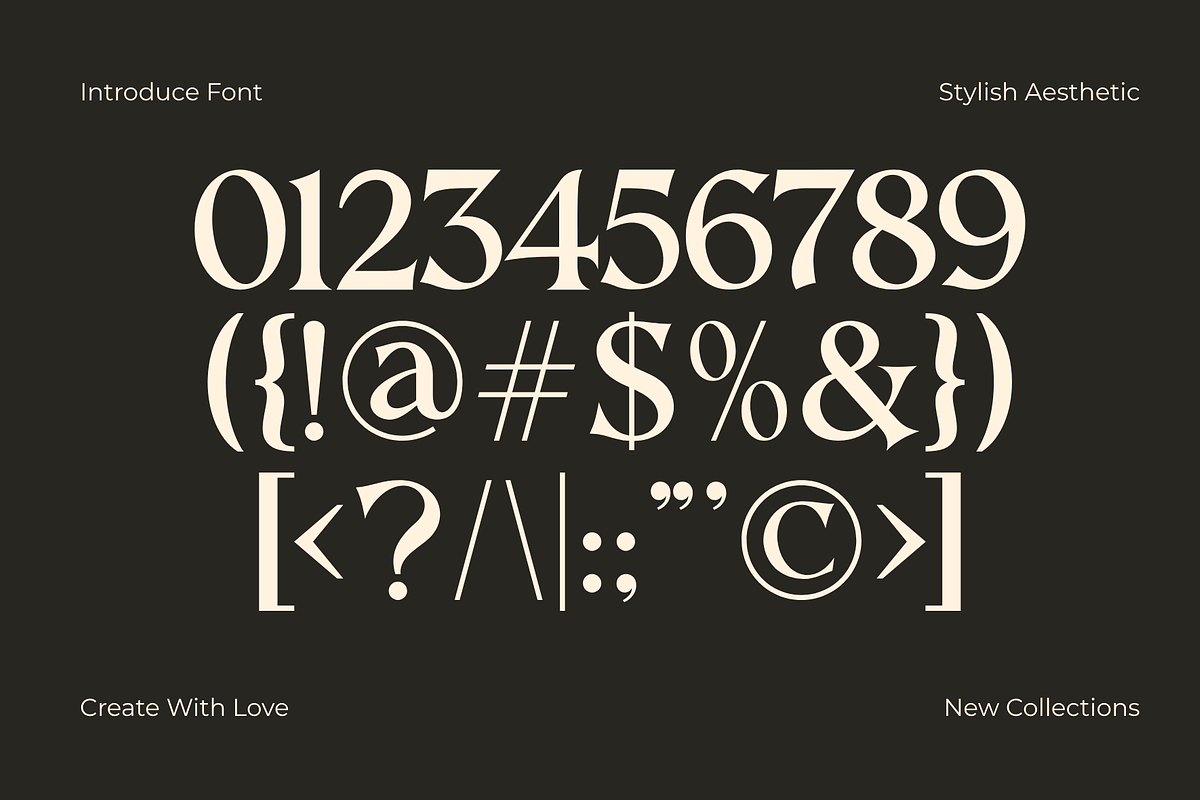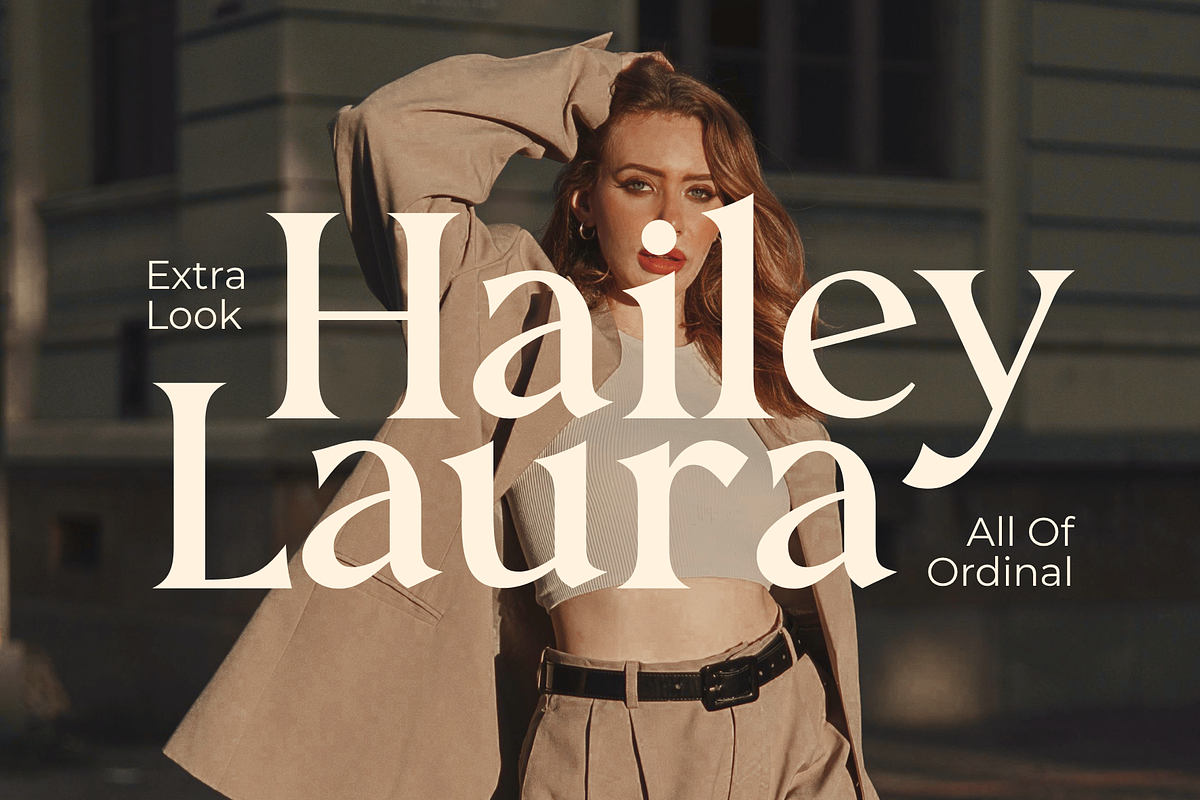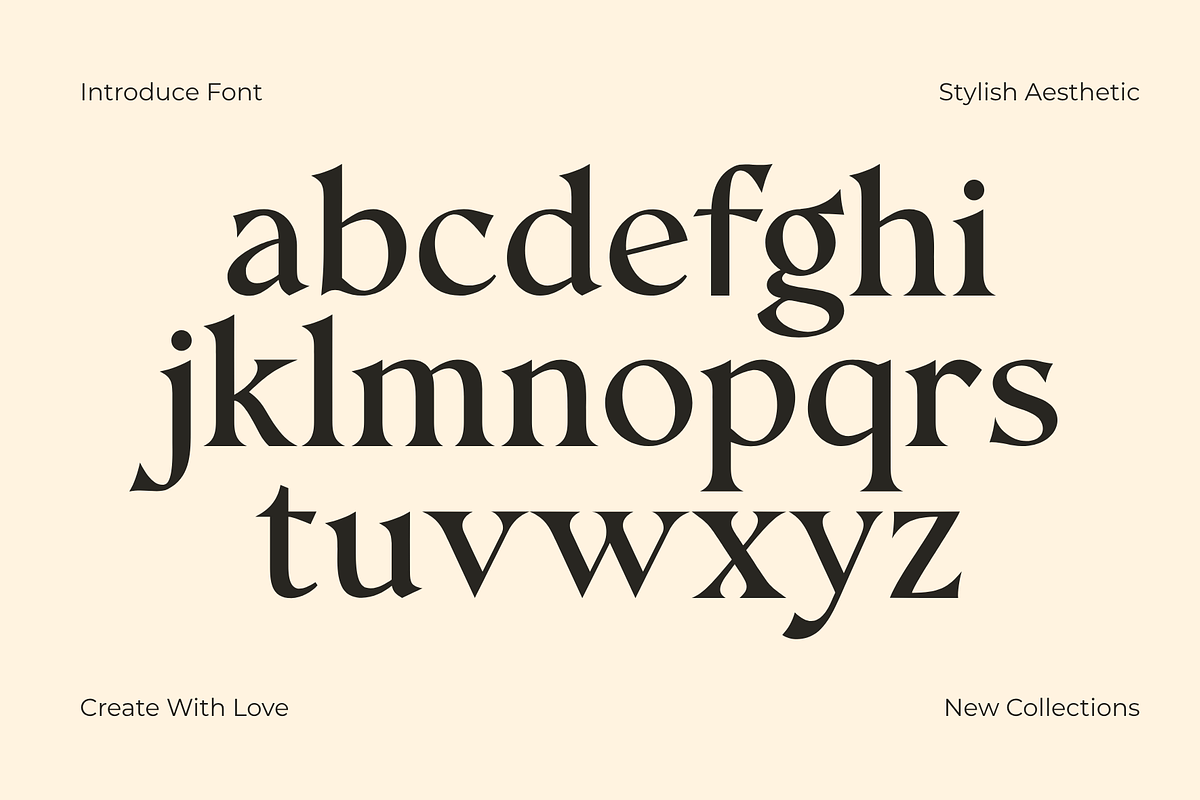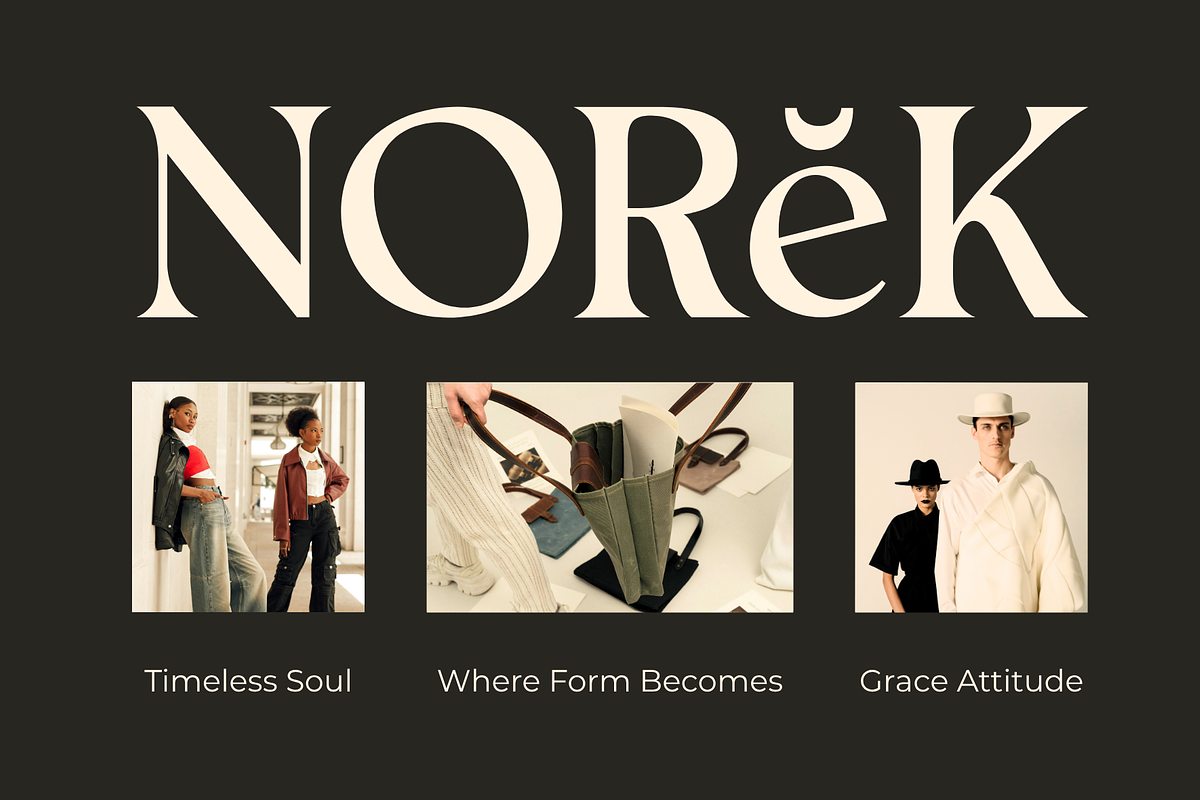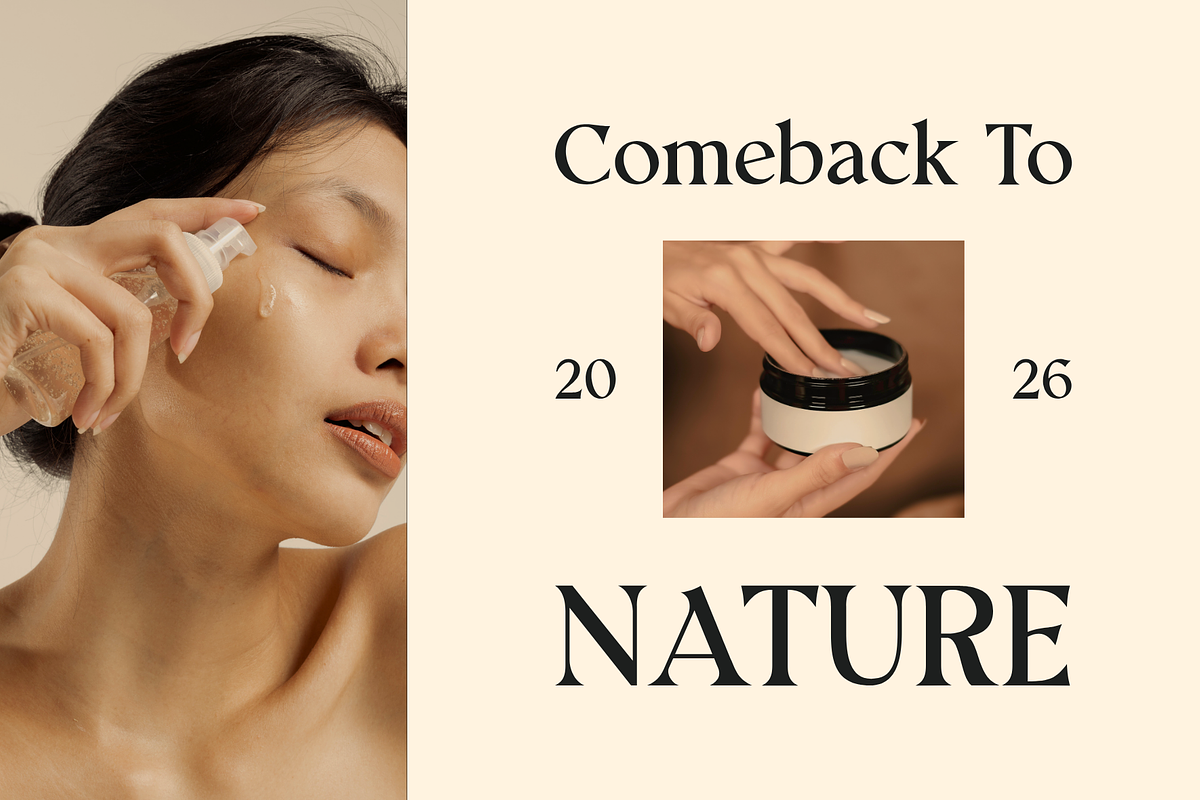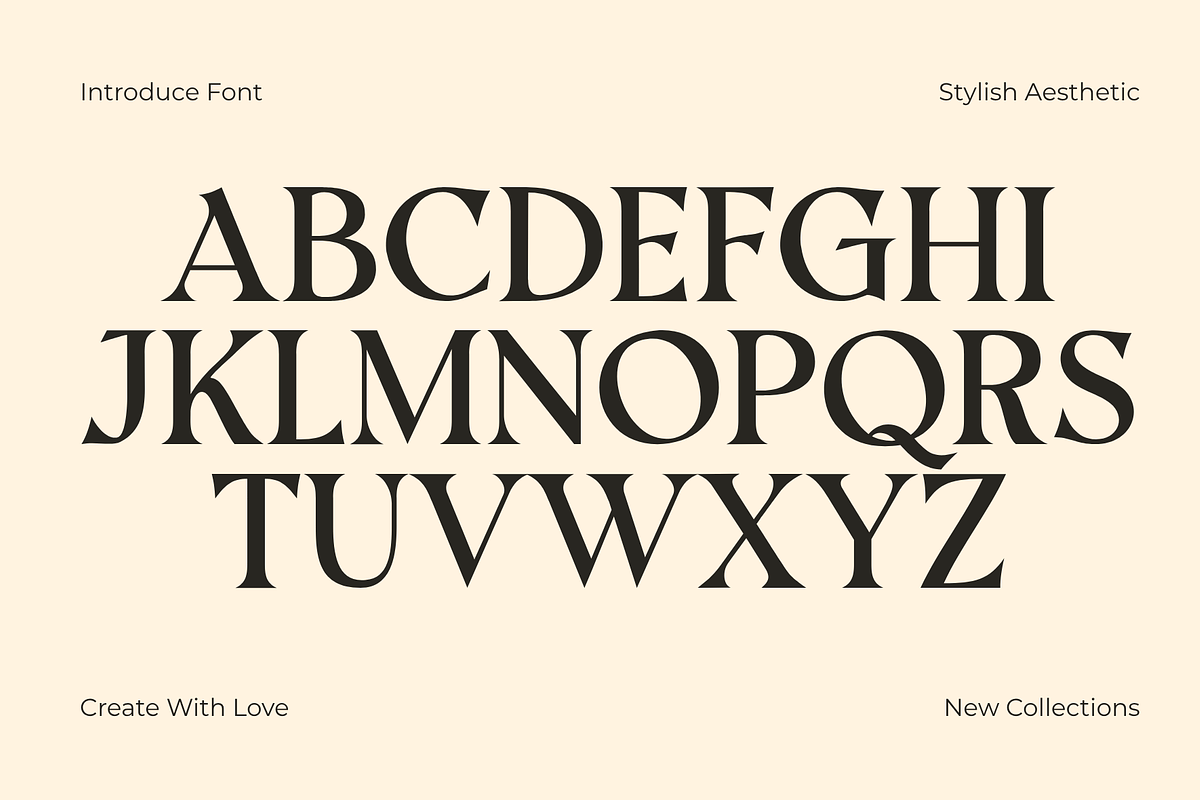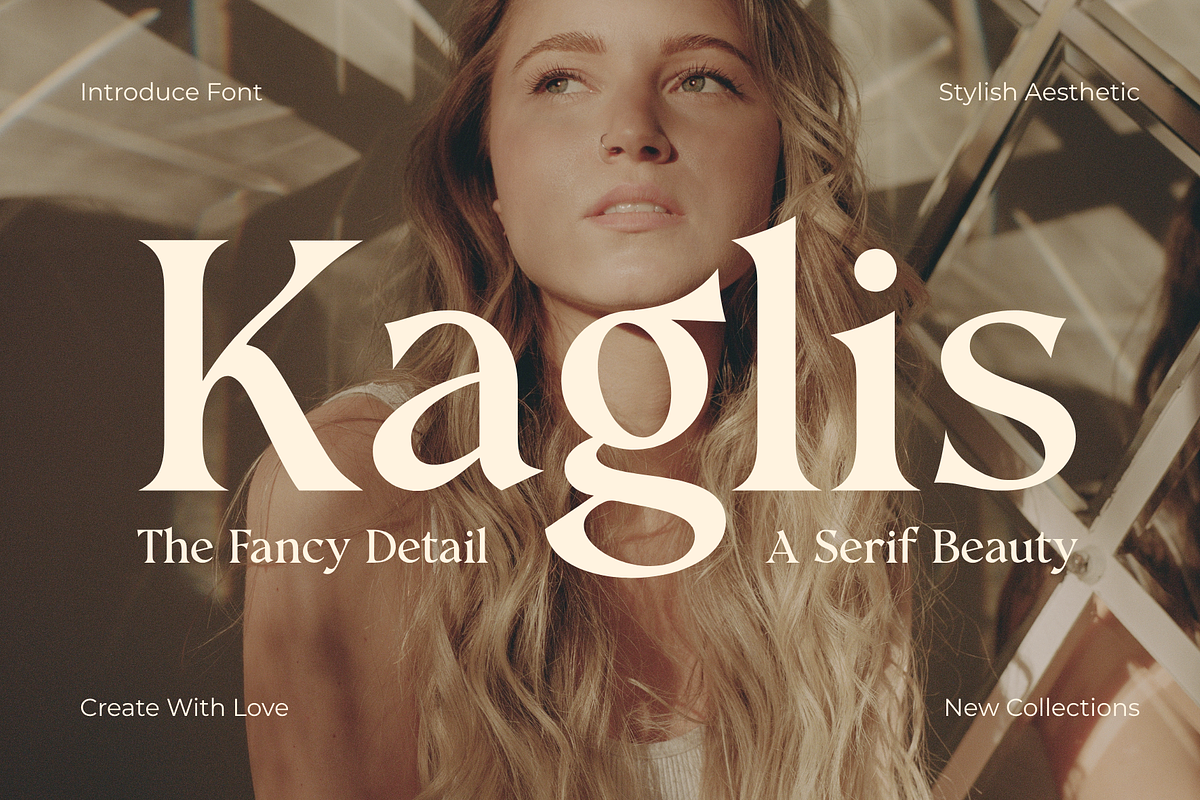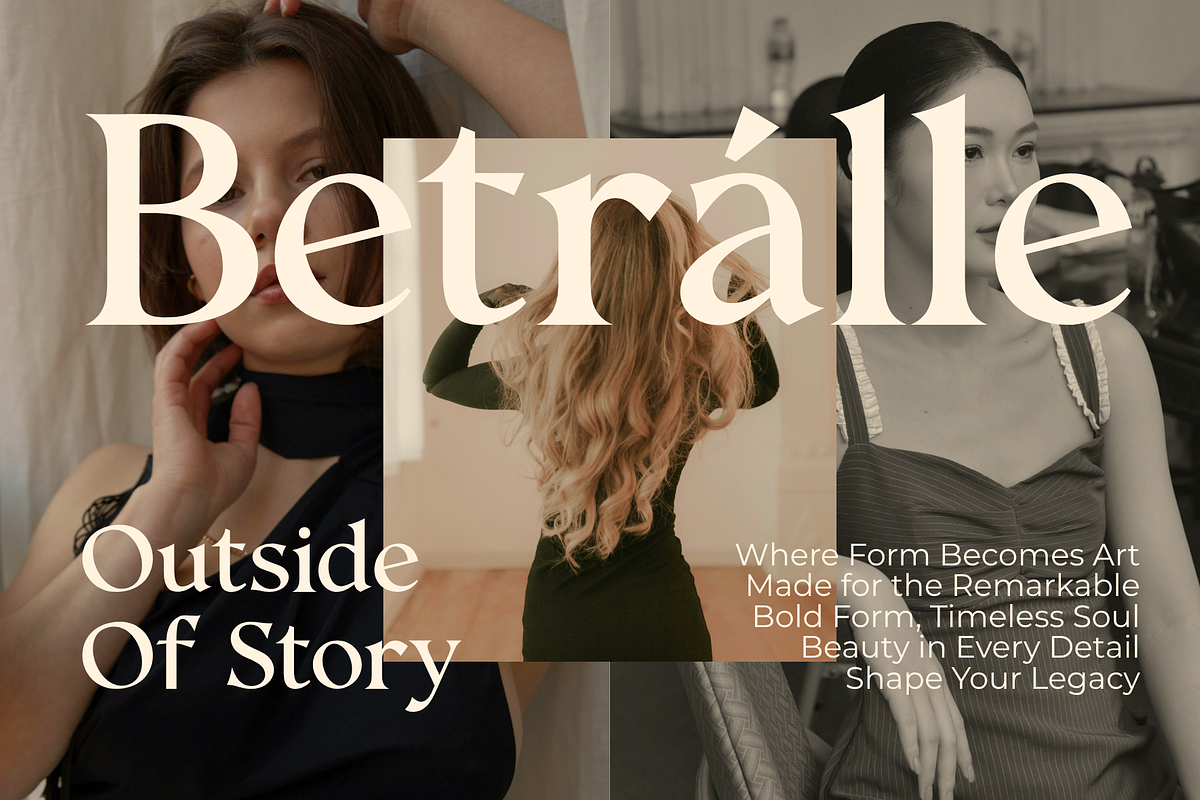
Kaglis – Elegant Luxury Serif Font
Kaglis is an elegant luxury serif font designed to bring a sophisticated, feminine, and editorial character to your creative projects. Featuring high-contrast strokes, graceful curves, and distinctive decorative details, Kaglis creates a refined visual impression with a touch of modern fashion aesthetics. Perfect for luxury branding, fashion magazines, beauty products, logos, wedding invitations, editorial layouts, packaging, social media designs, posters, headlines, and premium stationery. Its stylish and artistic letterforms make Kaglis especially suitable for projects that require a sophisticated, glamorous, and high-end appearance.